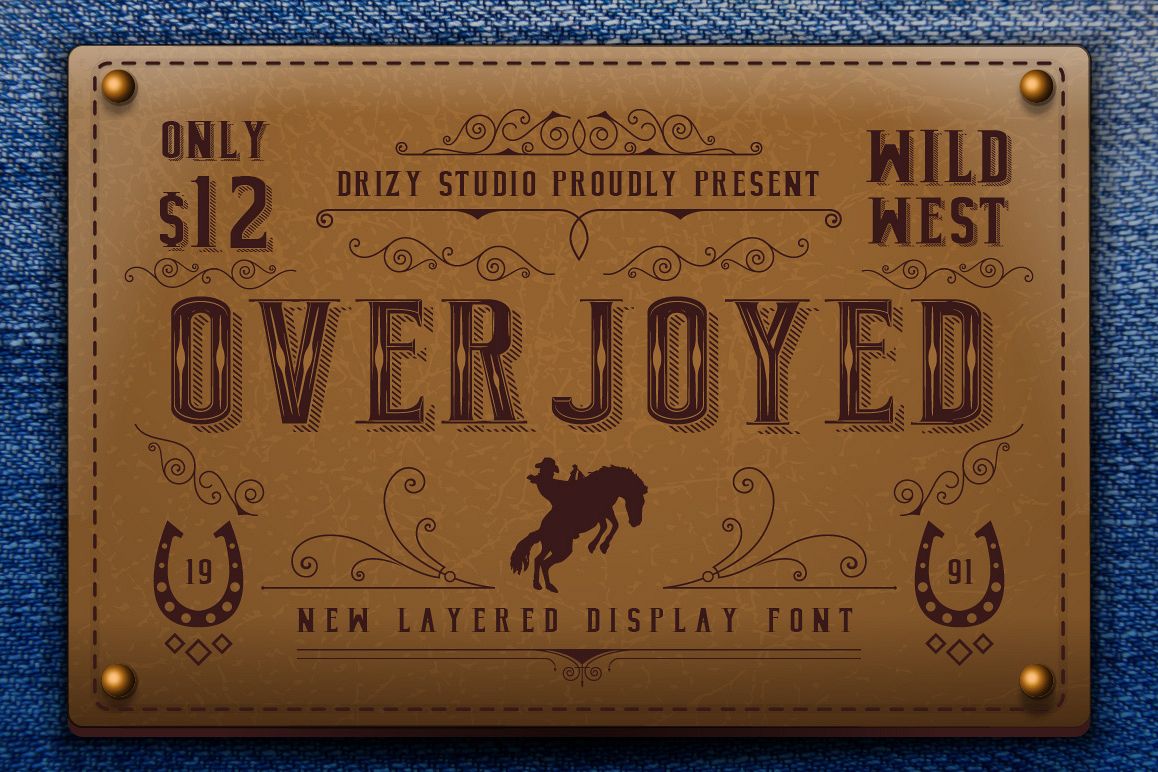
Overjoyed Layered Typeface
overjoyed highlight
overjoyed shadow
overjoyed
Overjoyed is a american cowboy-inspired, layered display face. Change the colours in the click of a button!This font is great for packaging, cover design, posters, logos, basically any time you need your message to pop. Both Overjoyed typeface also come included with multilingual support for the following languages:Czech, Danish, English, Finnish, French, German, Icelandic, Italian, Latvian, Lithuanian, Norwegian, Romanian, Scottish Gaelic, Slovak, Slovenian, Spanish, Swedish, Turkish, Welsh, etc.When Purchasing this items you will receive all off the following formats :-ttf-otfHope you like & enjoy it!When Purchasing this items you will receive all off the following formats :-ttf-otfHope you like & enjoy it!